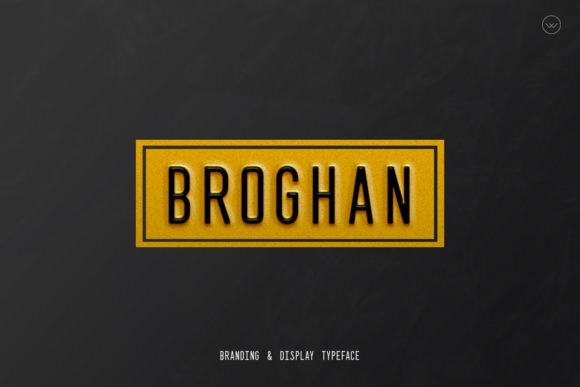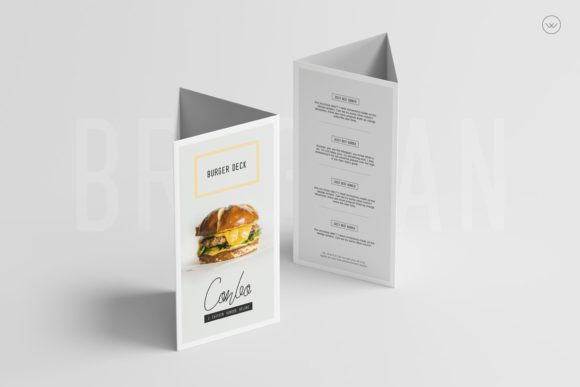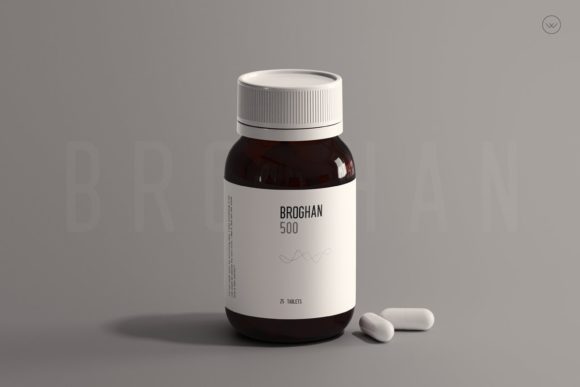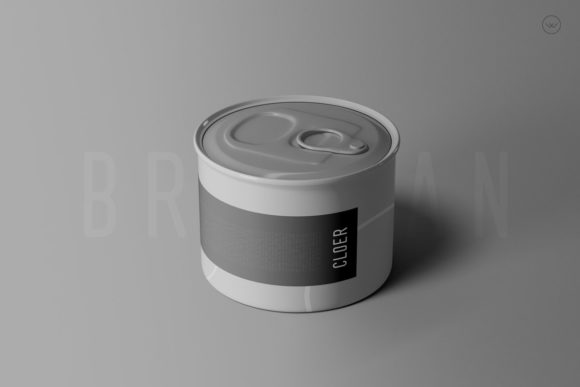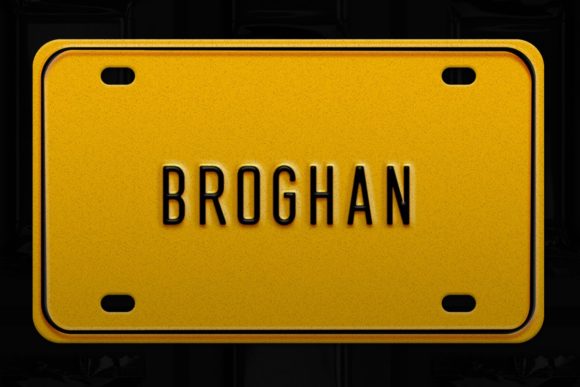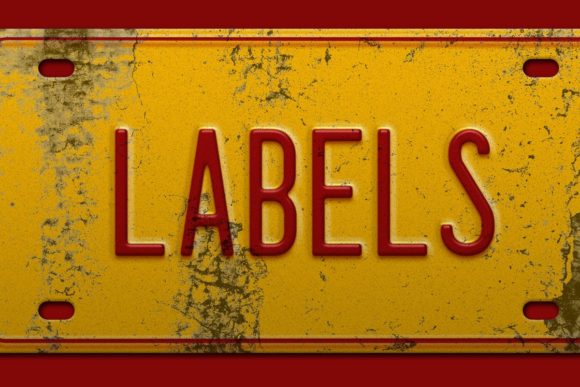
Broghan Font: Elevate Your Designs with a Simple yet Powerful Sans Serif Font
Are you tired of using the same old fonts in your designs? Look no further than Broghan Font, a simple and natural sans serif font that can elevate your creative projects to new heights. With its clean lines and effortless charm, Broghan is the perfect addition to any designer’s toolkit.
The Versatility of Broghan Font
One of the standout features of Broghan Font is its incredible versatility. Whether you’re working on a branding project, a website design, or a craft project, Broghan can be matched to an incredibly large set of projects. Its neutral and approachable design makes it easy to pair with a wide range of styles and themes, from modern and minimalist to rustic and vintage.
From business cards to billboards, Broghan Font can be used in a variety of applications. Its clear and legible design makes it perfect for body text, while its bold and confident style makes it ideal for headings and titles. Whether you’re designing for print or digital, Broghan Font is the perfect choice.
The Benefits of Using Broghan Font
So why choose Broghan Font for your next project? Here are just a few benefits of using this powerful sans serif font:
- Easy to read: Broghan Font is designed to be clear and legible, making it perfect for body text and other applications where readability is key.
- Highly versatile: Broghan Font can be paired with a wide range of styles and themes, making it easy to match to your project’s unique needs.
- Simple yet powerful: Broghan Font’s simple design belies its powerful impact. Its clean lines and effortless charm make it perfect for creating stunning designs.
- Perfect for digital and print: Whether you’re designing for digital or print, Broghan Font is the perfect choice. Its clear and legible design makes it perfect for a wide range of applications.
How to Use Broghan Font in Your Designs
Using Broghan Font in your designs is easy. Here are a few tips to get you started:
- Pair with bold colors: Broghan Font looks stunning paired with bold and bright colors. Try pairing it with a bold red or blue to create a striking design.
- Use for headings and titles: Broghan Font’s bold and confident style makes it perfect for headings and titles. Use it to create eye-catching headlines that grab attention.
- Mix with other fonts: Broghan Font can be paired with a wide range of other fonts to create a unique and interesting design. Try pairing it with a serif font for a striking contrast.
In conclusion, Broghan Font is a simple yet powerful sans serif font that can elevate your designs to new heights. Its versatility, readability, and effortless charm make it perfect for a wide range of projects, from branding and website design to craft and print projects. So why not add Broghan Font to your creative toolkit today and see how it can make your designs stand out?
Whether you’re a seasoned designer or just starting out, Broghan Font is a great addition to any creative project. Its neutral and approachable design makes it easy to pair with a wide range of styles and themes, and its clear and legible design makes it perfect for body text and other applications where readability is key.